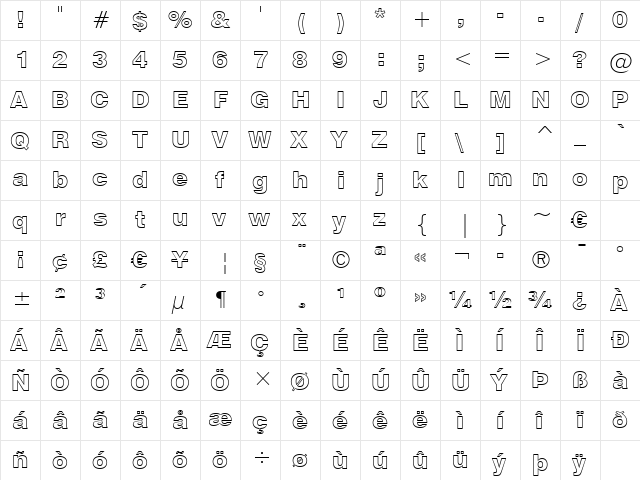
Swis721 BlkOul BT Black
Design Context for Swis721 BlkOul BT Typeface
Swis721 BlkOul BT takes a measured approach to typography — its balanced proportions and neutral character make it a reliable workhorse for both digital and print work.